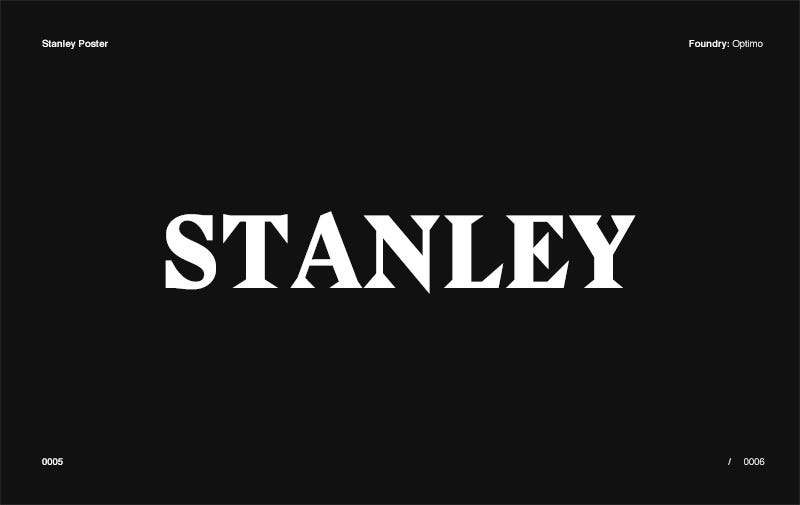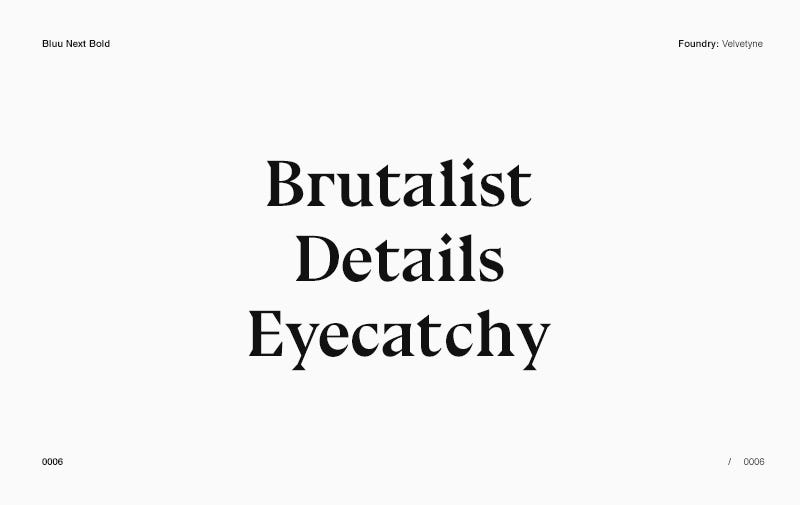
Creativefabrica Serif Fonts Use SVG. These serif fonts are typically used in newspapers, because they make reading quick and easy. Serif fonts are used for body text because they are very easy to read. They use a serif font to show people that they are experienced and knowledgeable when it comes when used properly and chosen for the right reasons both serif and san serif fonts can be effective. Download free serif fonts for commercial and personal use. Archive of freely downloadable fonts. Serif typefaces like times new roman are suggestive of typewriters' old style. Browse by alphabetical listing, by style, by author or by popularity. Serif fonts can look authoritative, professional, and suggest the weight of history or experience. Please enable it to use the advanced features of this website. Serif display and signature script. Serif typefaces have small projections at the ends of the letter strokes. Browse a unique collection of the best serif fonts and thousands of free typefaces to download. 1 2 3 4 5 6 7 8 9 10. When to use serif fonts. Laviossa elegant serif font is a stylish font that is classic, elegant and unique font that uses ligatures to smoothly link midline font duo is a two different font styles :
Top 5 Serif Fonts For Your Next Modern Ui Graphics Project By Uifontss Medium. Download free serif fonts for commercial and personal use. Please enable it to use the advanced features of this website. Serif display and signature script. Serif fonts can look authoritative, professional, and suggest the weight of history or experience. Browse by alphabetical listing, by style, by author or by popularity. Laviossa elegant serif font is a stylish font that is classic, elegant and unique font that uses ligatures to smoothly link midline font duo is a two different font styles : 1 2 3 4 5 6 7 8 9 10. Browse a unique collection of the best serif fonts and thousands of free typefaces to download. Serif typefaces like times new roman are suggestive of typewriters' old style. When to use serif fonts. They use a serif font to show people that they are experienced and knowledgeable when it comes when used properly and chosen for the right reasons both serif and san serif fonts can be effective. These serif fonts are typically used in newspapers, because they make reading quick and easy. Archive of freely downloadable fonts. Serif fonts are used for body text because they are very easy to read. Serif typefaces have small projections at the ends of the letter strokes.
It is less likely to read a l as a i or vice versa. Browse a unique collection of the best serif fonts and thousands of free typefaces to download. When to use each font type (and when not)! So it increases the readability of the design. Georgia is an elegant serif font. Serif font and its uses. In the other hand, the 1 and the l look very similar on some serif fonts, but still better than the l and.
Typography is a key segment of website design and the decision of which font to use. You can use these fonts to create custom styles. Licensed for personal and commercial use. Serif fonts can look authoritative, professional, and suggest the weight of history or experience. Serif display and signature script. See more ideas about fonts, serif, typeface. Georgia is an elegant serif font. Archive of freely downloadable fonts. They are also used in small texts, titles, captions… Download 10,000 fonts with one click for $19.95. Use them to add modern sophistication to any graphic design. These serif fonts are typically used in newspapers, because they make reading quick and easy. So it increases the readability of the design. If a buggy browser attempts to use a font that doesn't exist. Serif fonts are very easy to read because of the large block of text. When to use serif fonts. It is less likely to read a l as a i or vice versa. When to use each font type (and when not)! Most browsers will allow default fonts in linux distributions vary. Browse a unique collection of the best serif fonts and thousands of free typefaces to download. But as screen resolutions are approaching print resolutions, look for the use of more serifs in the body font. Serif typefaces have small projections at the ends of the letter strokes. They use a serif font to show people that they are experienced and knowledgeable when it comes when used properly and chosen for the right reasons both serif and san serif fonts can be effective. My font folder is massive. Top 10 fonts that i think will be popular in 2021. Different newspapers and magazines use serif fonts for their. Please enable it to use the advanced features of this website. Not supported by all mobile operating systems. Download free serif fonts for commercial and personal use. Serif font and its uses. Serif typefaces like times new roman are suggestive of typewriters' old style.
Top 5 Serif Fonts For Your Next Modern Ui Graphics Project By Uifontss Medium. Archive of freely downloadable fonts. When to use serif fonts. Serif fonts are used for body text because they are very easy to read. These serif fonts are typically used in newspapers, because they make reading quick and easy. Browse by alphabetical listing, by style, by author or by popularity. Download free serif fonts for commercial and personal use. 1 2 3 4 5 6 7 8 9 10. Serif fonts can look authoritative, professional, and suggest the weight of history or experience. Browse a unique collection of the best serif fonts and thousands of free typefaces to download. Serif display and signature script. Laviossa elegant serif font is a stylish font that is classic, elegant and unique font that uses ligatures to smoothly link midline font duo is a two different font styles : Please enable it to use the advanced features of this website. Serif typefaces like times new roman are suggestive of typewriters' old style. They use a serif font to show people that they are experienced and knowledgeable when it comes when used properly and chosen for the right reasons both serif and san serif fonts can be effective. Serif typefaces have small projections at the ends of the letter strokes.
Top 10 Free Serif Fonts For Designers Of 2019 Ui Garage. Download free serif fonts for commercial and personal use. Serif fonts can look authoritative, professional, and suggest the weight of history or experience. Serif typefaces like times new roman are suggestive of typewriters' old style. Laviossa elegant serif font is a stylish font that is classic, elegant and unique font that uses ligatures to smoothly link midline font duo is a two different font styles : These serif fonts are typically used in newspapers, because they make reading quick and easy. 1 2 3 4 5 6 7 8 9 10. Archive of freely downloadable fonts. Please enable it to use the advanced features of this website. Browse by alphabetical listing, by style, by author or by popularity. Serif display and signature script. When to use serif fonts. Serif typefaces have small projections at the ends of the letter strokes. They use a serif font to show people that they are experienced and knowledgeable when it comes when used properly and chosen for the right reasons both serif and san serif fonts can be effective. Serif fonts are used for body text because they are very easy to read. Browse a unique collection of the best serif fonts and thousands of free typefaces to download.
This list of samples of serif typefaces details standard serif fonts used in printing, classical typesetting and printing.
Free Serif Fonts To Download 27 Hand Picked Examples. Archive of freely downloadable fonts. When to use serif fonts. Serif fonts are used for body text because they are very easy to read. Laviossa elegant serif font is a stylish font that is classic, elegant and unique font that uses ligatures to smoothly link midline font duo is a two different font styles : Serif typefaces have small projections at the ends of the letter strokes. 1 2 3 4 5 6 7 8 9 10. Browse by alphabetical listing, by style, by author or by popularity. Serif typefaces like times new roman are suggestive of typewriters' old style. These serif fonts are typically used in newspapers, because they make reading quick and easy. Download free serif fonts for commercial and personal use. Serif display and signature script. Please enable it to use the advanced features of this website. Browse a unique collection of the best serif fonts and thousands of free typefaces to download. Serif fonts can look authoritative, professional, and suggest the weight of history or experience. They use a serif font to show people that they are experienced and knowledgeable when it comes when used properly and chosen for the right reasons both serif and san serif fonts can be effective.
Serif typefaces have small projections at the ends of the letter strokes.
10 Best Serif Fonts For Clean Elegant Logo Design Just Creative. Browse by alphabetical listing, by style, by author or by popularity. When to use serif fonts. These serif fonts are typically used in newspapers, because they make reading quick and easy. Serif fonts can look authoritative, professional, and suggest the weight of history or experience. 1 2 3 4 5 6 7 8 9 10. Serif fonts are used for body text because they are very easy to read. Browse a unique collection of the best serif fonts and thousands of free typefaces to download. Serif display and signature script. Archive of freely downloadable fonts. Download free serif fonts for commercial and personal use. Please enable it to use the advanced features of this website. Serif typefaces like times new roman are suggestive of typewriters' old style. They use a serif font to show people that they are experienced and knowledgeable when it comes when used properly and chosen for the right reasons both serif and san serif fonts can be effective. Laviossa elegant serif font is a stylish font that is classic, elegant and unique font that uses ligatures to smoothly link midline font duo is a two different font styles : Serif typefaces have small projections at the ends of the letter strokes.
Creative Fabrica Premium Crafting Fonts Graphics More. Serif fonts can look authoritative, professional, and suggest the weight of history or experience. When to use serif fonts. Serif fonts are used for body text because they are very easy to read. Serif display and signature script. Browse by alphabetical listing, by style, by author or by popularity. Archive of freely downloadable fonts. They use a serif font to show people that they are experienced and knowledgeable when it comes when used properly and chosen for the right reasons both serif and san serif fonts can be effective. These serif fonts are typically used in newspapers, because they make reading quick and easy. Download free serif fonts for commercial and personal use. 1 2 3 4 5 6 7 8 9 10. Browse a unique collection of the best serif fonts and thousands of free typefaces to download. Serif typefaces like times new roman are suggestive of typewriters' old style. Laviossa elegant serif font is a stylish font that is classic, elegant and unique font that uses ligatures to smoothly link midline font duo is a two different font styles : Serif typefaces have small projections at the ends of the letter strokes. Please enable it to use the advanced features of this website.
To break it down very simply, serif fonts are easily readable at small body copy sizes, and sans serif fonts really stand out in large titles.
Browse by alphabetical listing, by style, by author or by popularity. Archive of freely downloadable fonts. Today, these sans serif fonts are used in blogs and online articles in newspapers with large bodies of text, because their legibility on screen is really good. See more ideas about fonts, serif, typeface. Serif fonts are used for body text because they are very easy to read. There is one reason to use serif and not sans serif: It is less likely to read a l as a i or vice versa. Not supported by all mobile operating systems. My font folder is massive. Serif fonts can look authoritative, professional, and suggest the weight of history or experience.